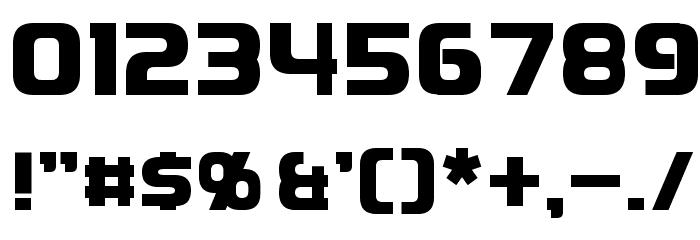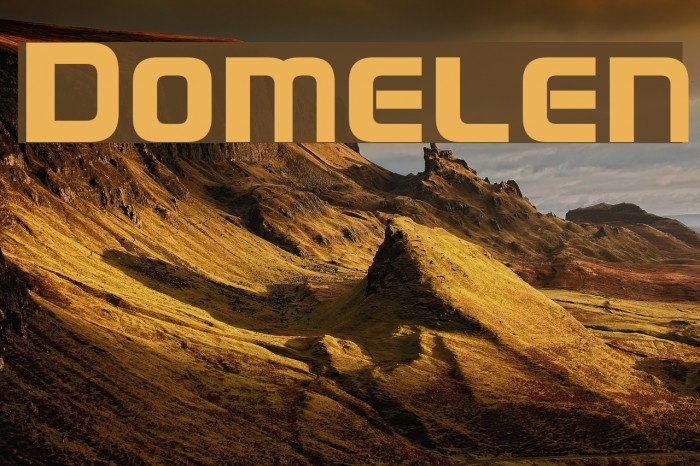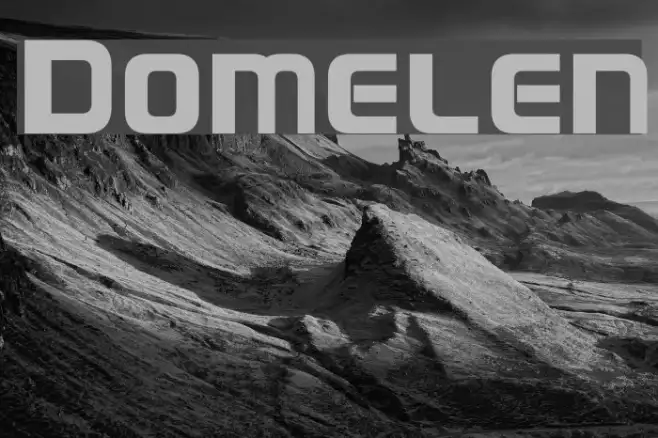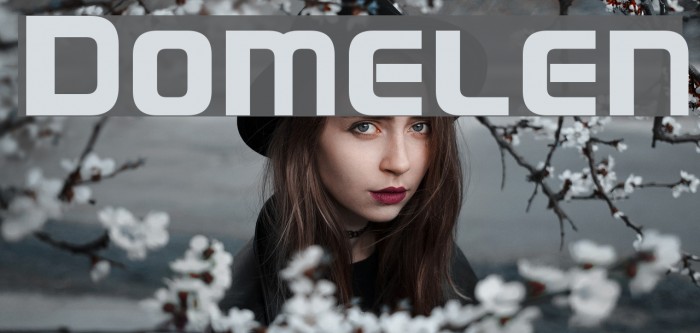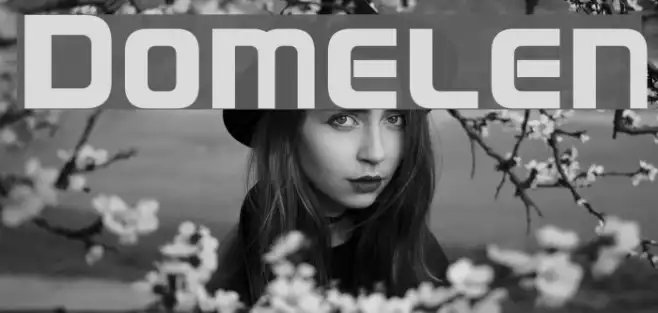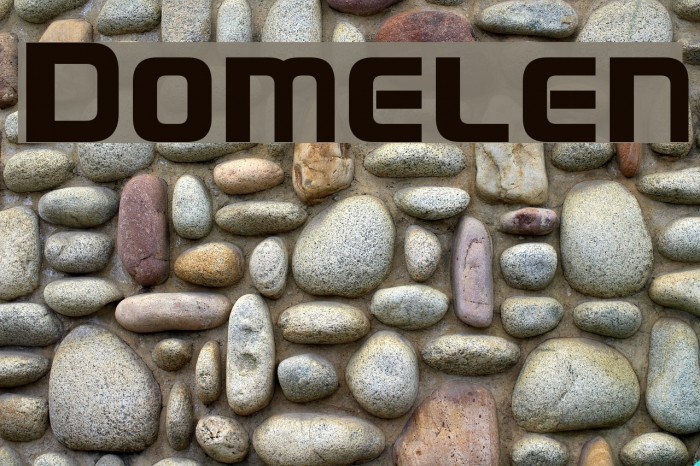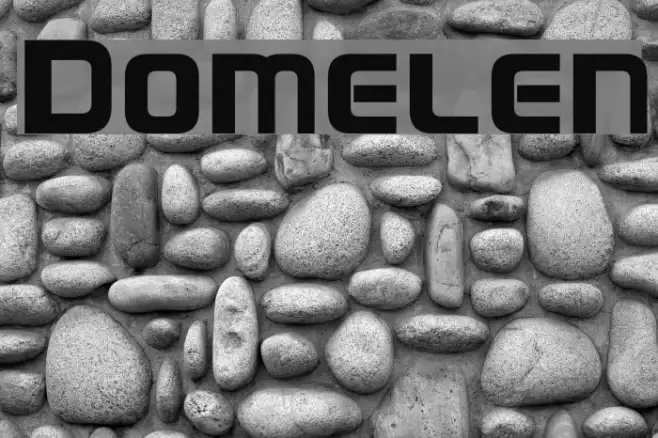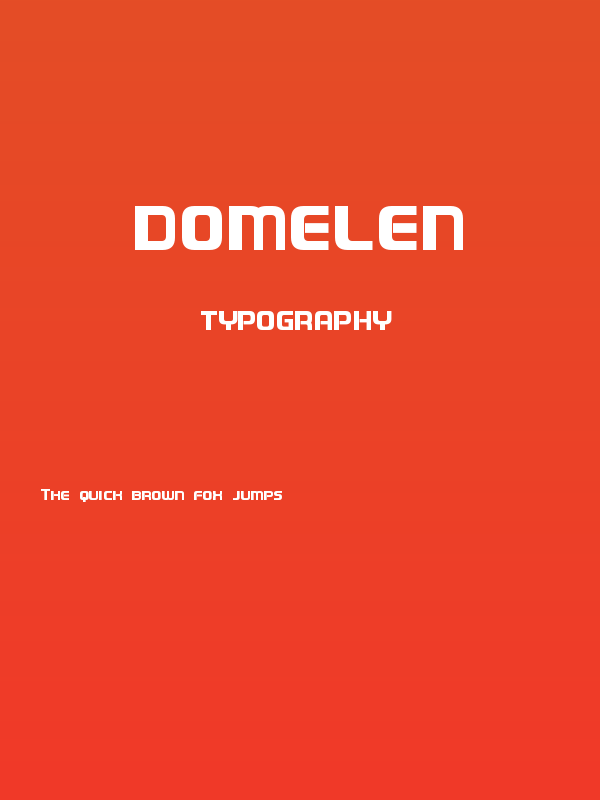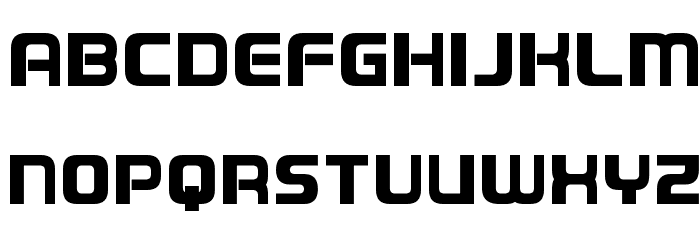
Domelen Font
Domelen Description
This font exhibits a bold and modern design with a geometric structure. The characters are uniformly thick, providing a strong visual impact. The uppercase letters are well-defined with rounded edges, while the lowercase letters maintain a consistent style that complements the uppercase set. The numerals are clear and bold, making them easily distinguishable. Special characters are designed with the same boldness, ensuring they stand out. The overall appearance is clean and contemporary, suitable for various digital and print applications.
| Proposed Projects | Ideal for branding, headlines, posters, and digital media where a strong, modern presence is needed. |